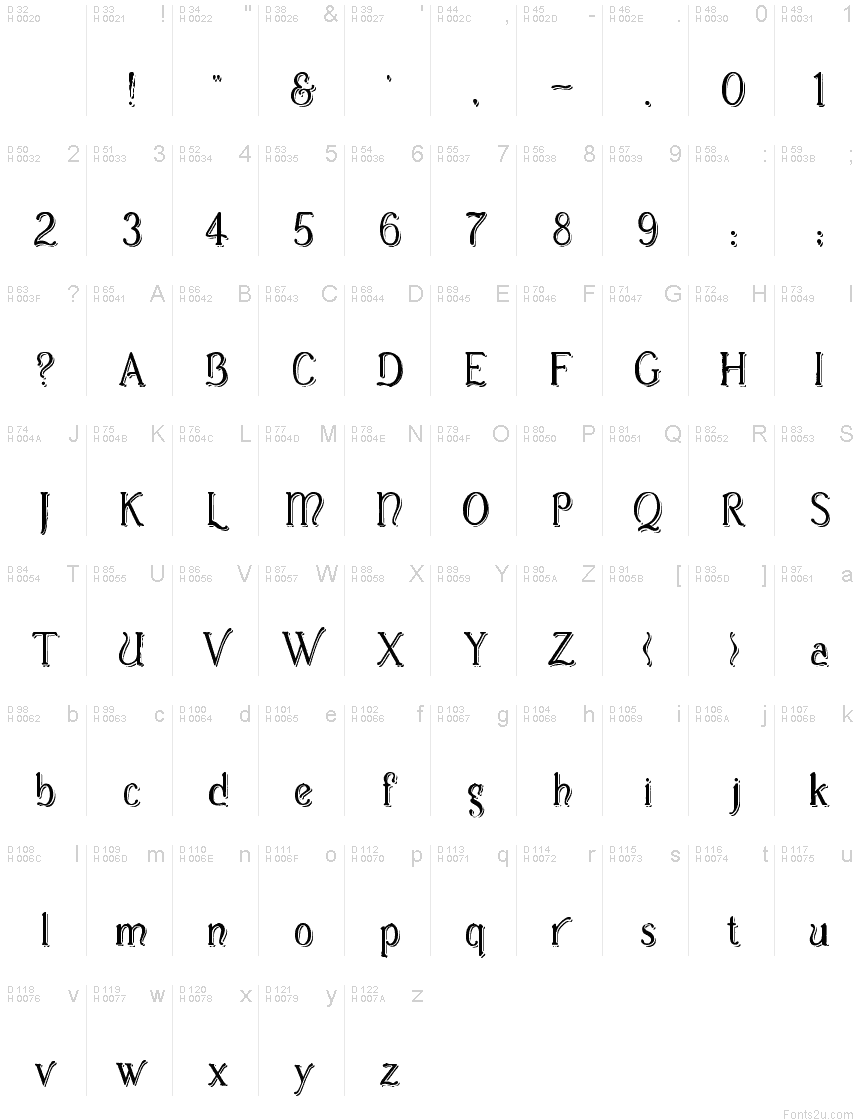
Casua_Shopsign
Casua_Shopsign font by PJL is a free retro display typeface that feels like it was lifted from a hand-painted storefront. Thick, inky strokes curl into soft hooks and flared feet, while the letters lean and sway with a friendly, slightly theatrical energy. It has the warmth of old neighborhood shop signs: a little irregular, proudly bold, and impossible to ignore in a crowd of flat, digital lettering.
Using Casua_Shopsign, you can give café logos, boutique signage, farmers’ market posters, packaging, event flyers, and book covers a cozy, old-shop charm. This free font shines when set large, letting the swooping shapes breathe and overlap. Pair it with a clean, modern sans serif for small print or captions to keep layouts readable while Casua_Shopsign carries the personality up front.